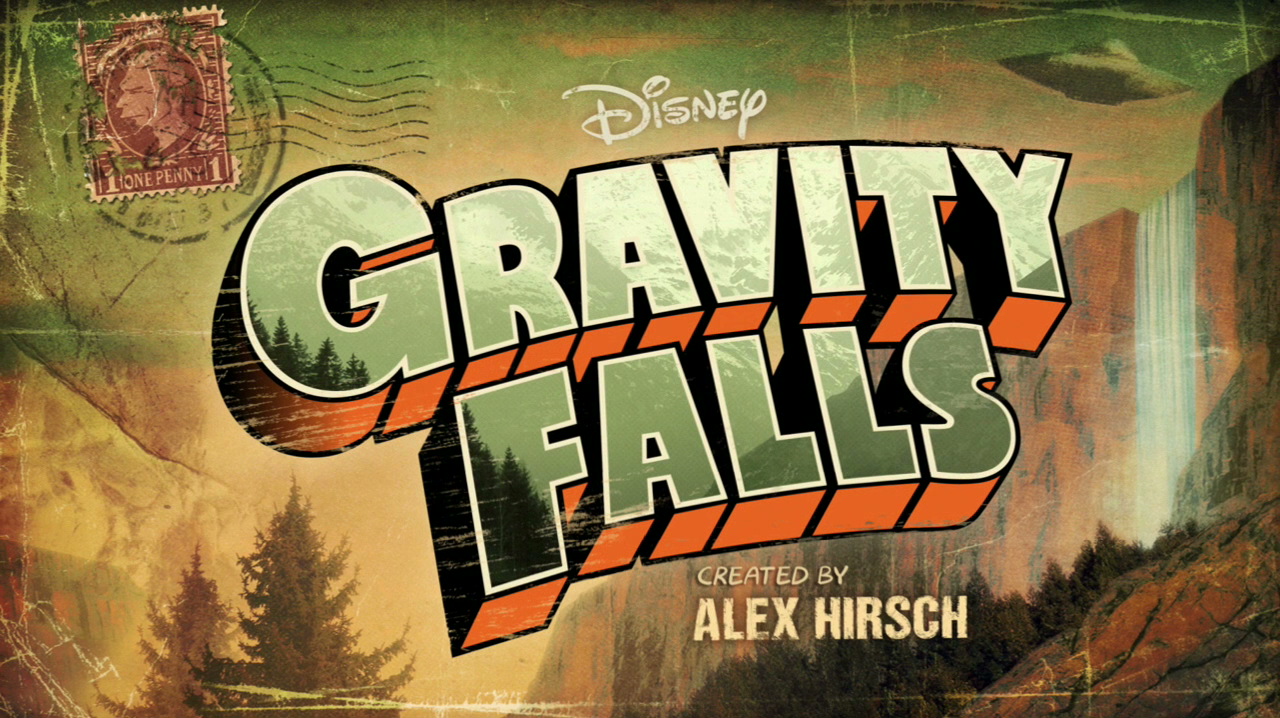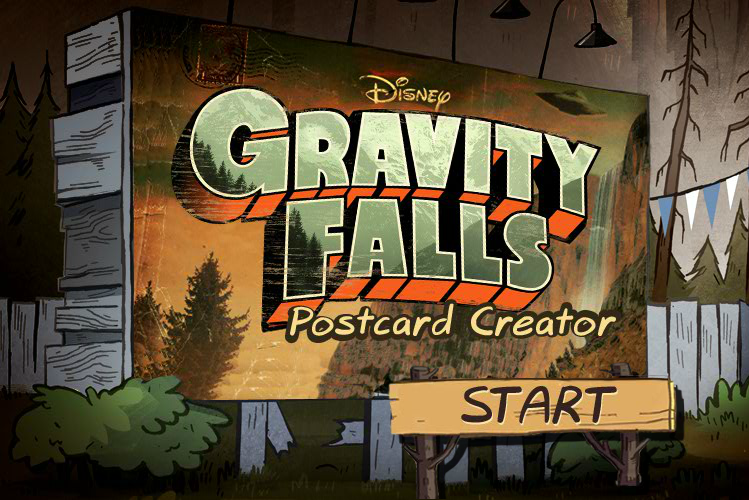
About gravity falls (tv show) font. It follows the adventures of dipper pines and his twin sister mabel in the fictional town of gravity falls, oregon, while on summer vacation.
Gravity falls font generator. Gravity falls is an american animated television series that first aired on disney channel then later transitioned to disney xd from june 15 2012 to february 15 2016. 5 out of 5 stars. Cipher virtual keyboard is based on author cipher true type font.
Gravity falls is an american animated television series that first aired on disney channel then later transitioned to disney xd from june 15, 2012 to february 15, 2016. Gravity falls bill's symbol substitution cipher decoder. This is worthless memes with mememarket, the fast and totally free meme generator.
Used them got a trunk or treat sign and it just made the whole thing connect! The fonts in use section features posts about fonts used in logos, films, tv shows, video games, books and more; Gravity falls is a fancy, cartoon font designed by maxigamer.
Use the text generator tool below to preview gravity falls font and create awesome text based images or logos with different colors and hundreds of text effects. Jan 06, 2014 at 01:32. Community logos > jaderose256 > gravity falls logo.
Gravity falls ( gravitation falls) created by ( joe font) alex hirsch ( gothic cg no4) about walter ramos. The zip archive contains the following files: What mysteries will you solve?
Gravity falls is an american animated television series that first aired on disney channel then later transitioned to disney xd. Gravity falls uncle stan the journals meme generator the fastest meme generator on the planet. Easily add text to images or memes.
Imgflip supports all web fonts and windows/mac fonts including bold and italic, if they are installed on your device. Toy story font svg, toy story alphabet, toy story numbers, toy story letters. You can download the images and share on your social media profiles.
Adrianna krug dec 28, 2020. Gravitation falls is a font replicating the font used for the logo of the tv show gravity falls. Generate cool and amazing fonts by using gravity falls font generator.